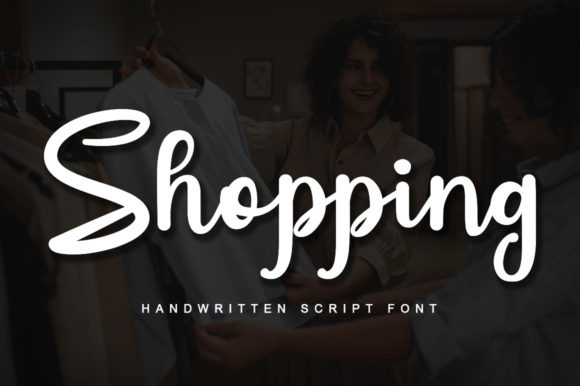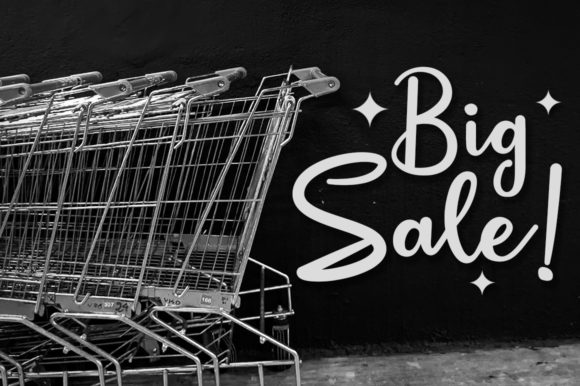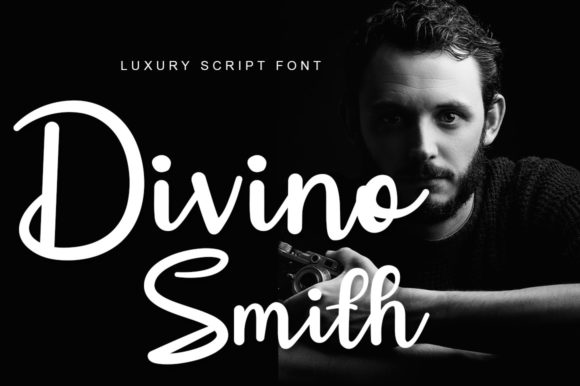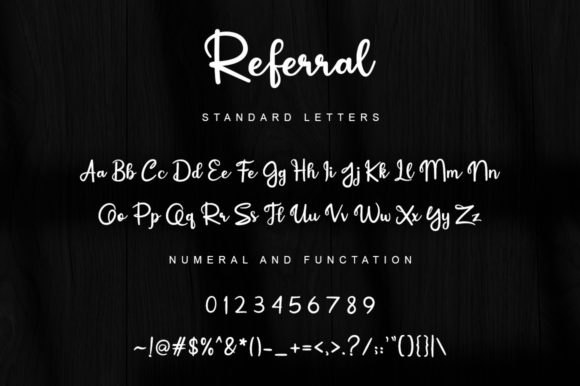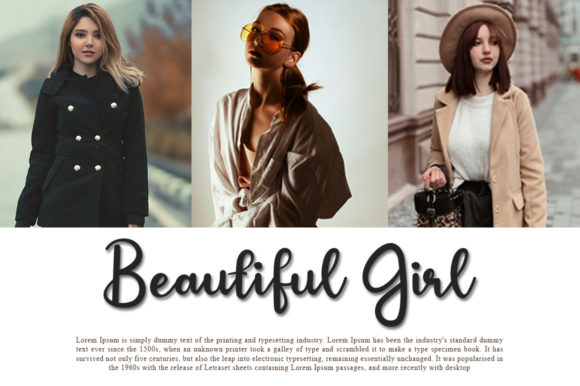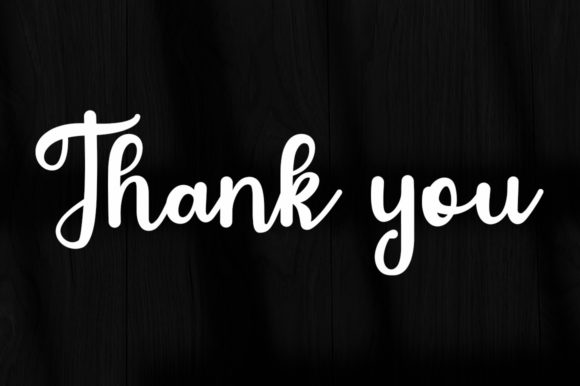
Referral Font
About Referral Font
Referral is a delicate handwritten font, sweet and adaptable. It has beautiful and well balanced characters and as a result, it matches a wide pool of designs. Add it to your most creative ideas and notice how it makes them come alive!